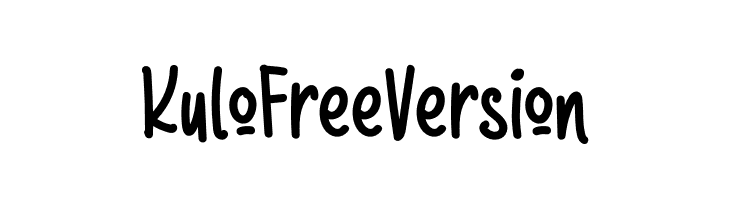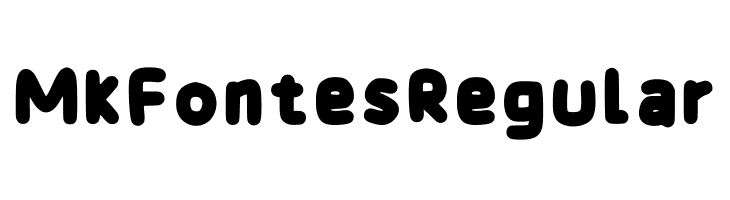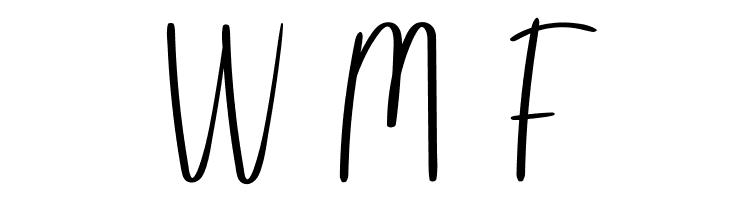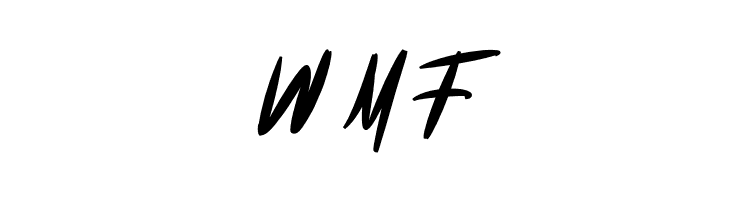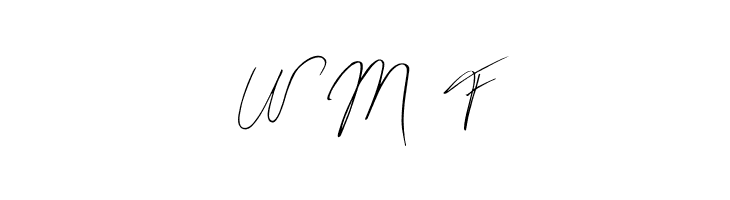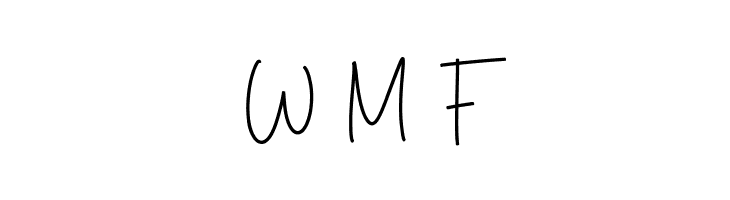
A playful, handwritten font with rounded, casual letterforms.
A bold, playful handwritten font with thick strokes and a casual style.
A playful, rounded font with bold, smooth curves and a friendly appearance.
An elegant, flowing script font with a refined, handwritten style.
A bold, playful handwritten font with a dynamic and informal style.
A graceful, handwritten script font with elegant curves and fluid lines.
A bold, handwritten font with dynamic and energetic strokes.
A playful, handwritten script font with a modern and dynamic style.